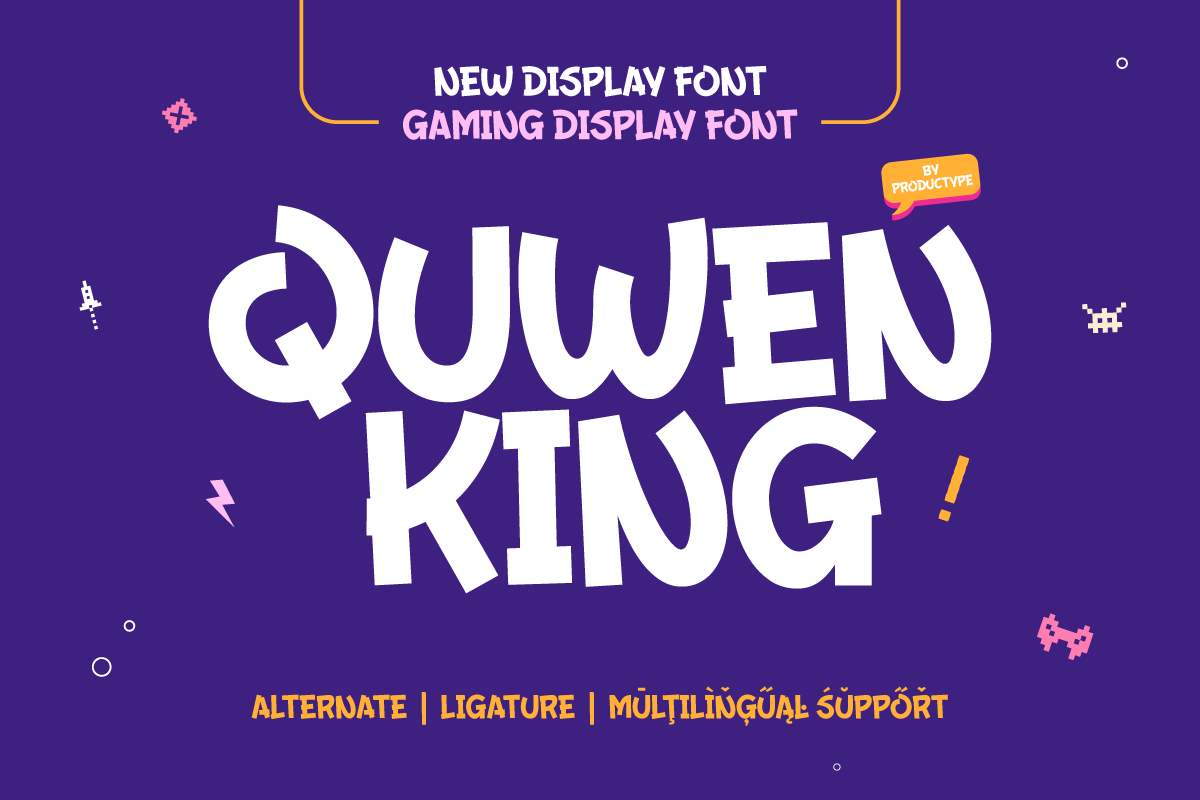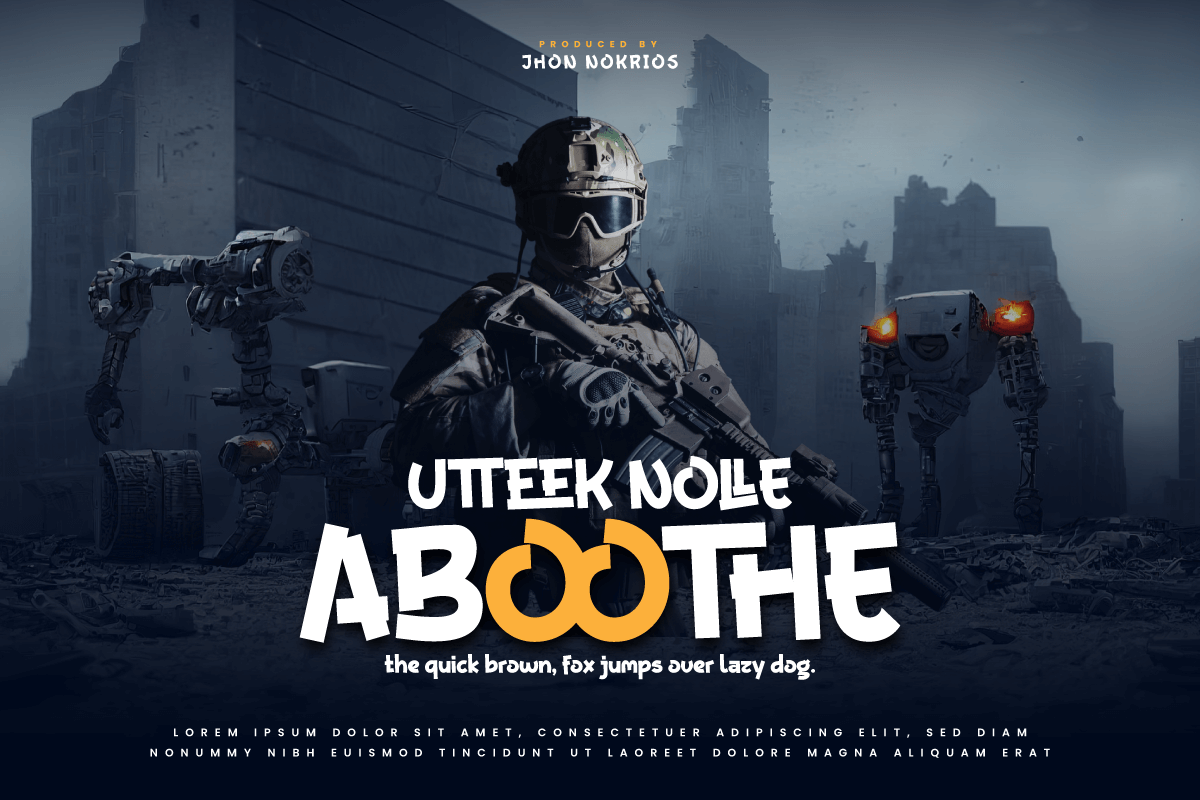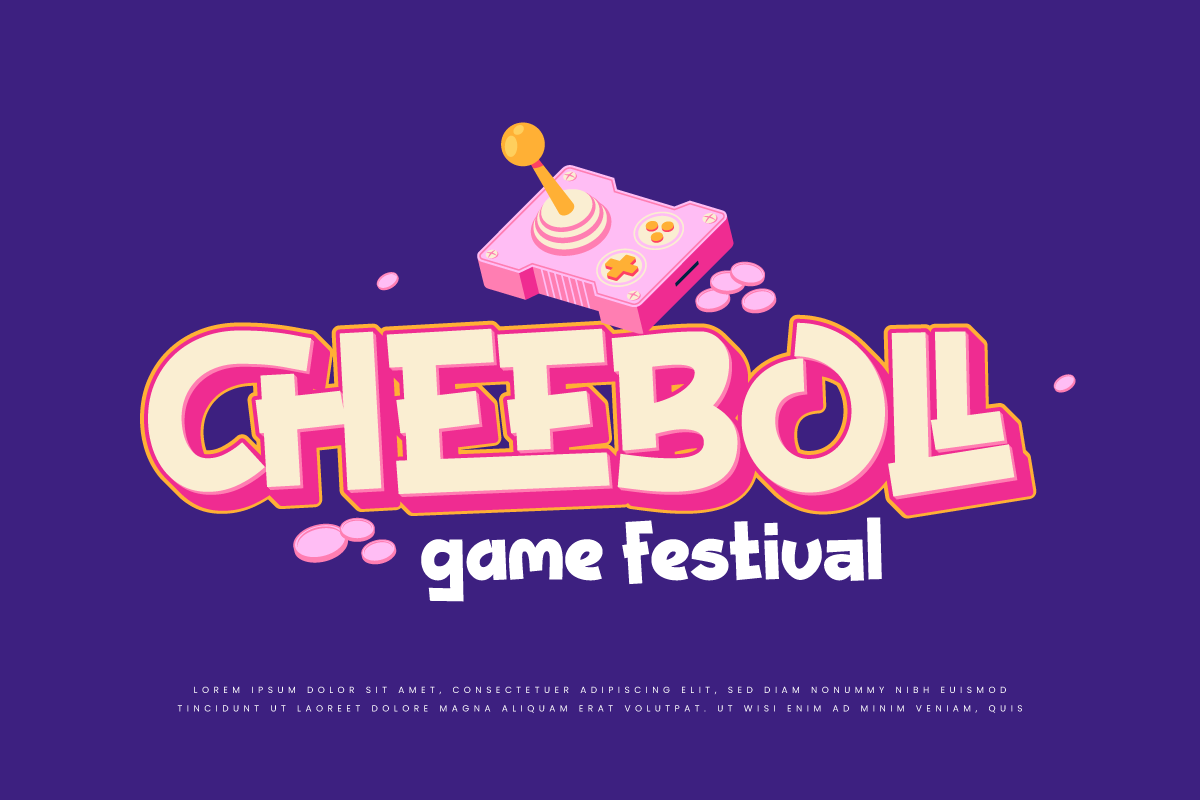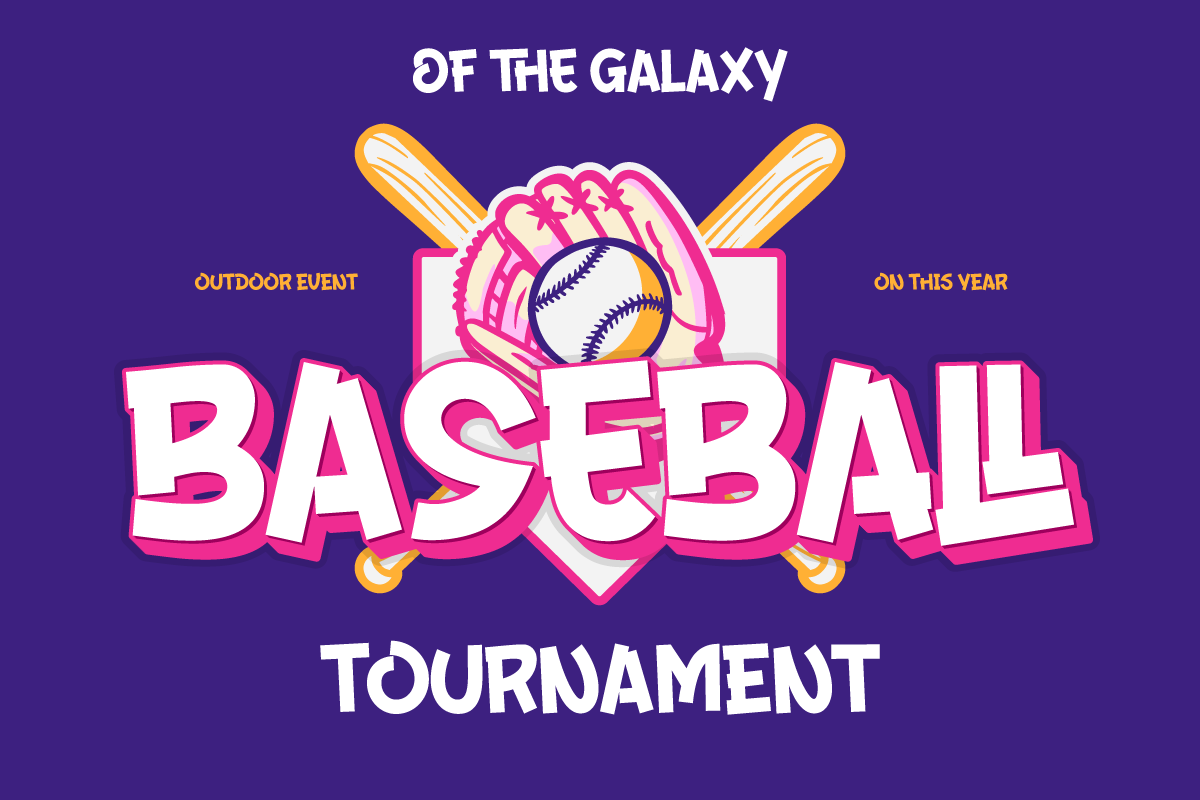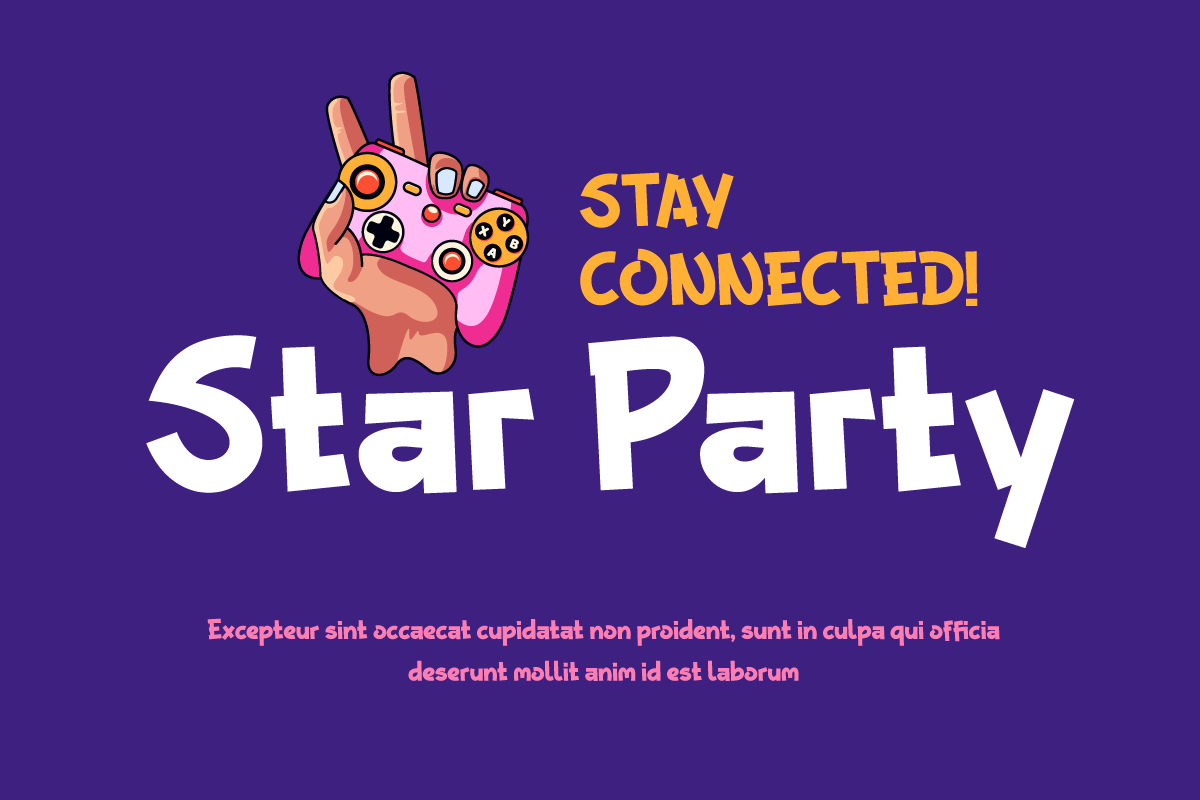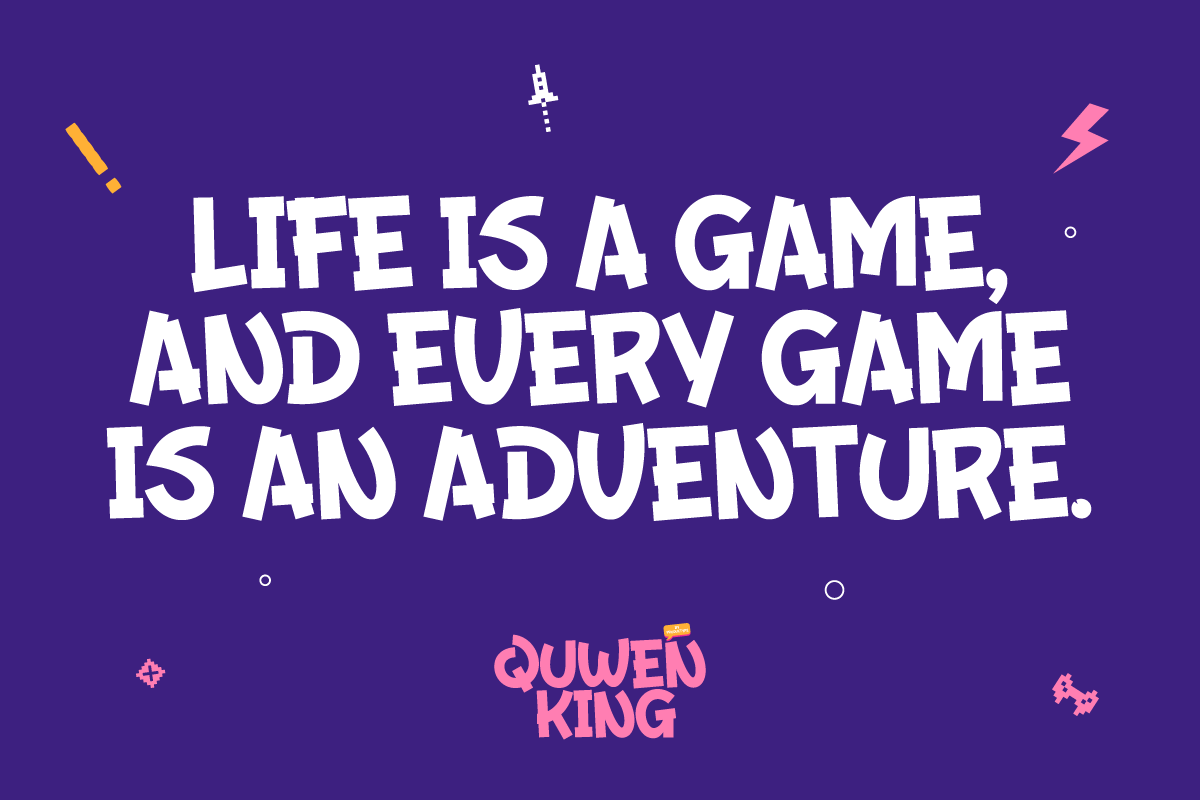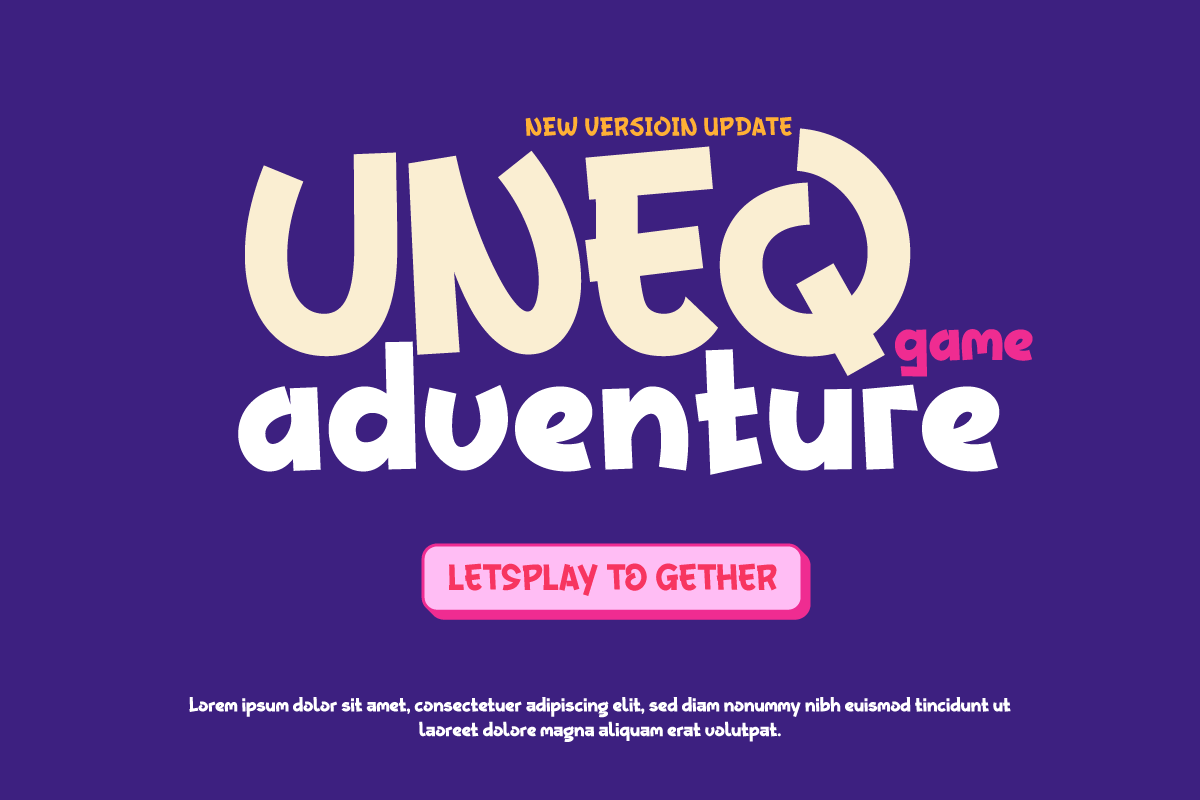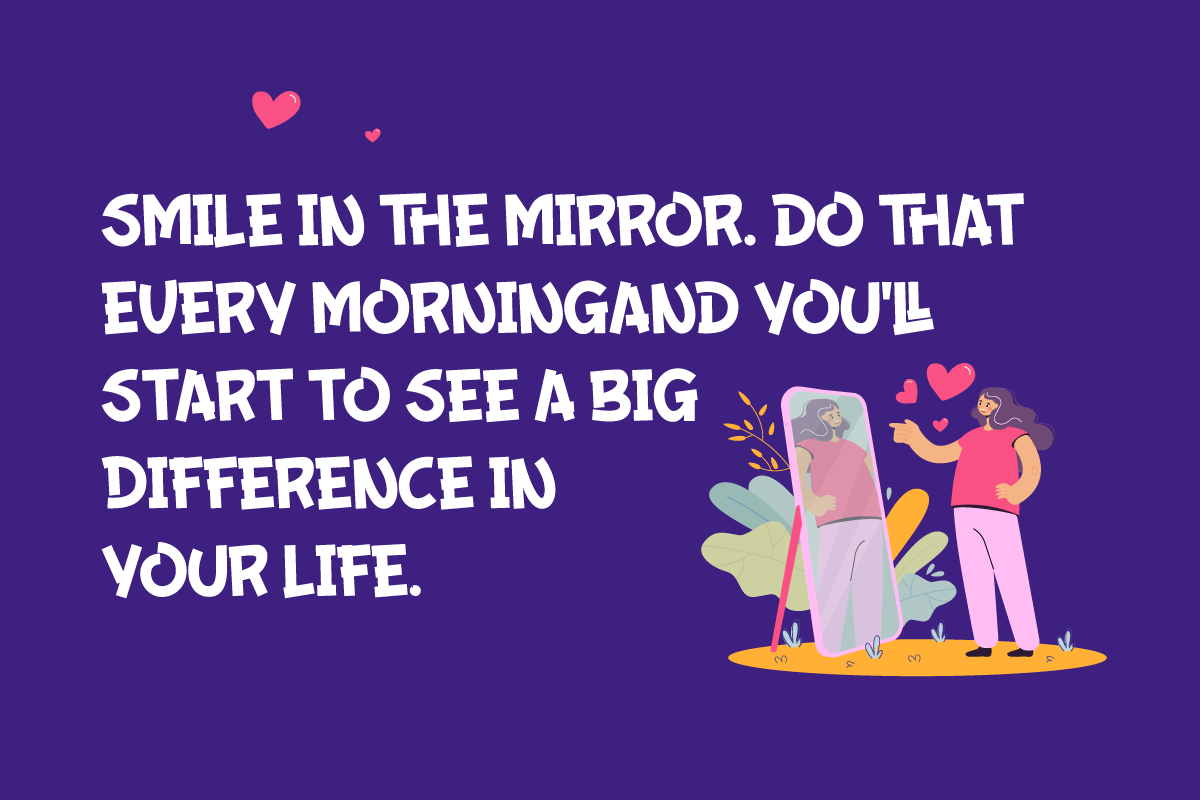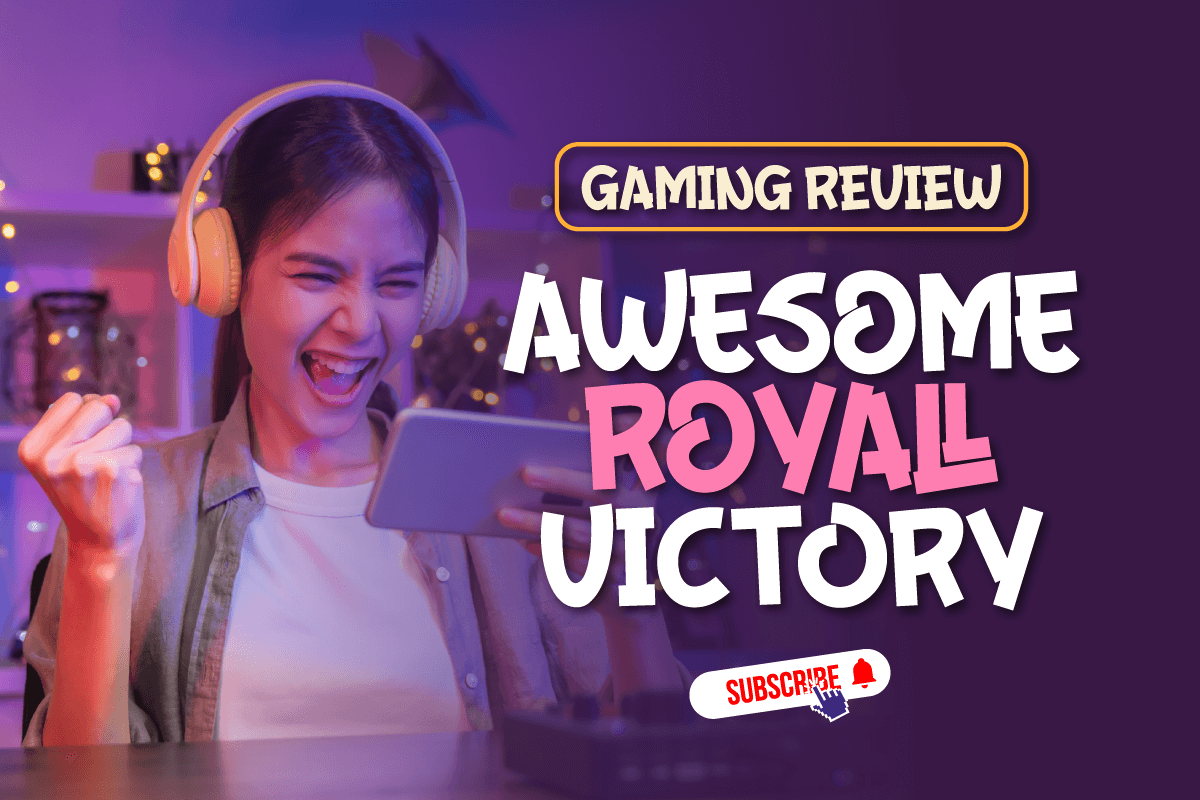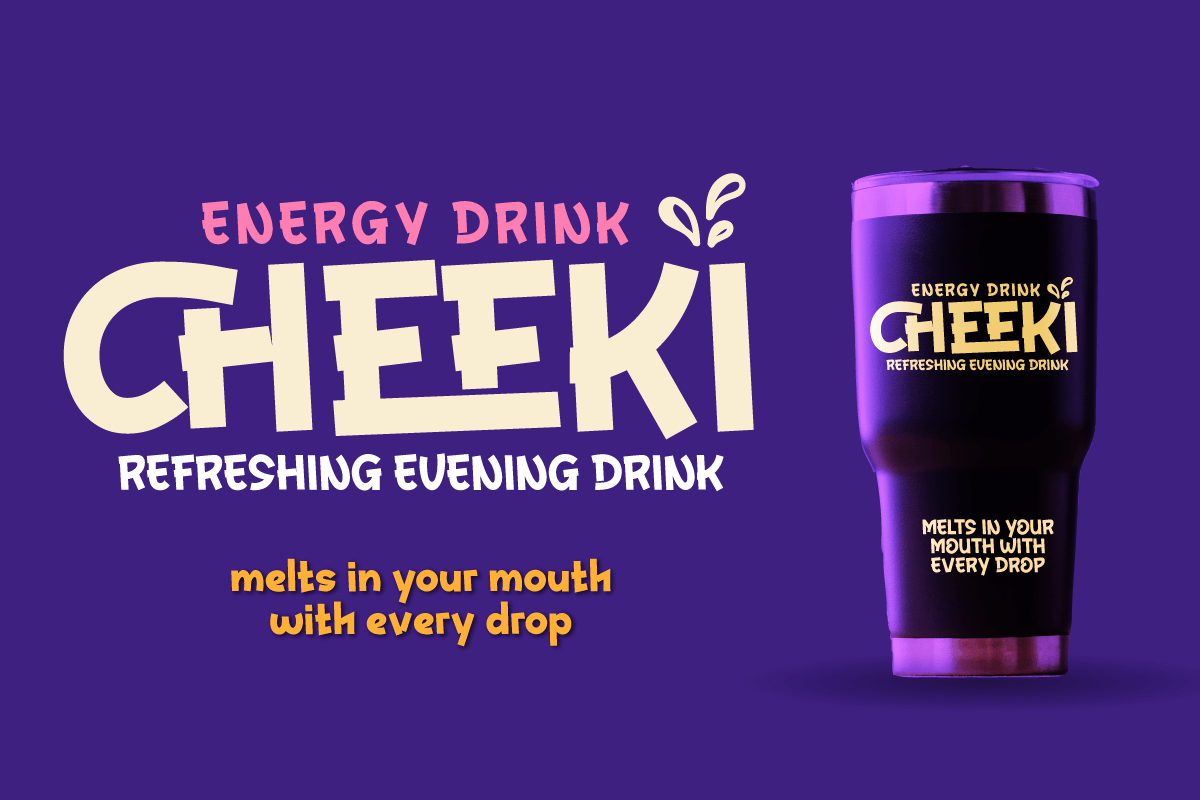
Quwen King – Display Gaming Font
Who says design has to be boring? The Quwen King font is the secret key to bringing power, glitz, and gaming style to any of your projects.
Quwen King is the perfect solution for projects that require a unique touch. From powerful movie displays to exciting games and stunning streaming events, this font captivates and dominates in a variety of languages.
With Quwen King, you don’t just get a font, you get the tools to bring creativity, charm, and fun to your designs.
Enhance your projects with Quwen King Font now, and enjoy amazing results that will make your designs stand out!